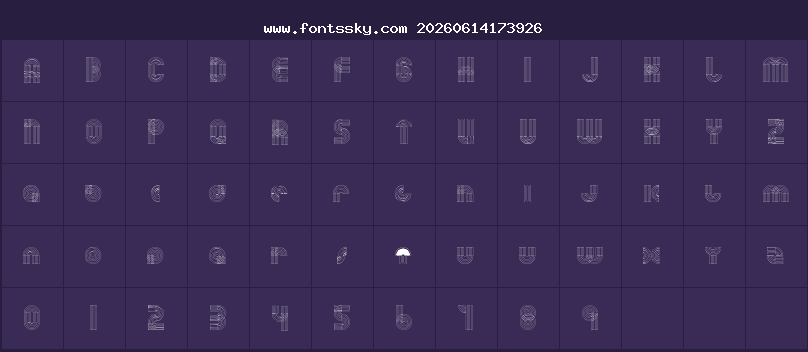
Orbits Thin Preview
• Font Name: Orbits Thin
• Font Style: Thin
• Font ID: LukaszKulakowskiandZbyszekCzapnik: Orbits Thin: 2012
• Full Font Name: Orbits-Thin
• Version: Version 0.001 alpha
• PostScript Name: Orbits-Thin
• Character Count: 65
• Manufacturer: Lukasz Kulakowski and Zbyszek Czapnik
About Orbits Thin.otf
Orbits Thin.otf is a modern, elegant sans-serif font designed for ultimate readability and visual harmony. Perfect for branding, headlines, web design, and print materials.